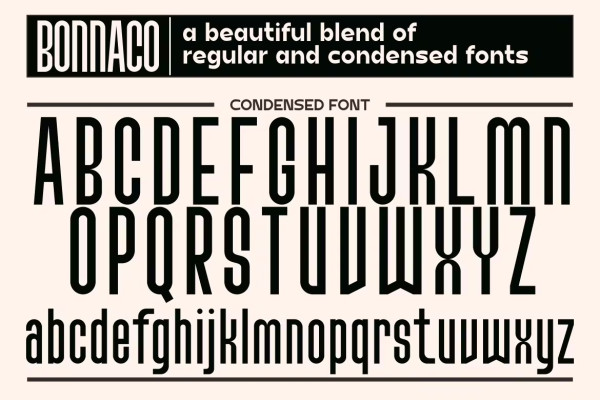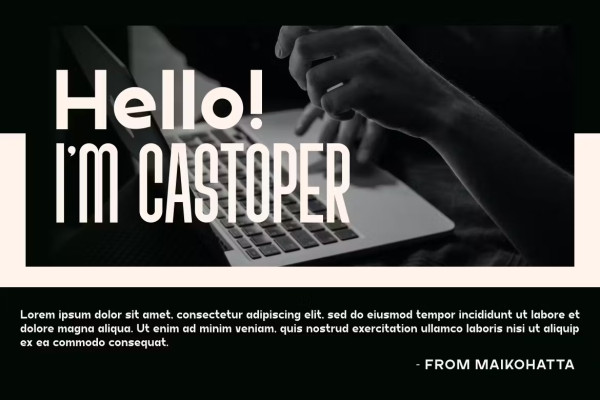
Bonnaco Font
Bonnaco Font, Reguler and Condensed Style Font – Modern Font is a bold and authentic display font. The font is suitable for any branding project like logo, template design and many more. outstanding in a wide range of contexts.